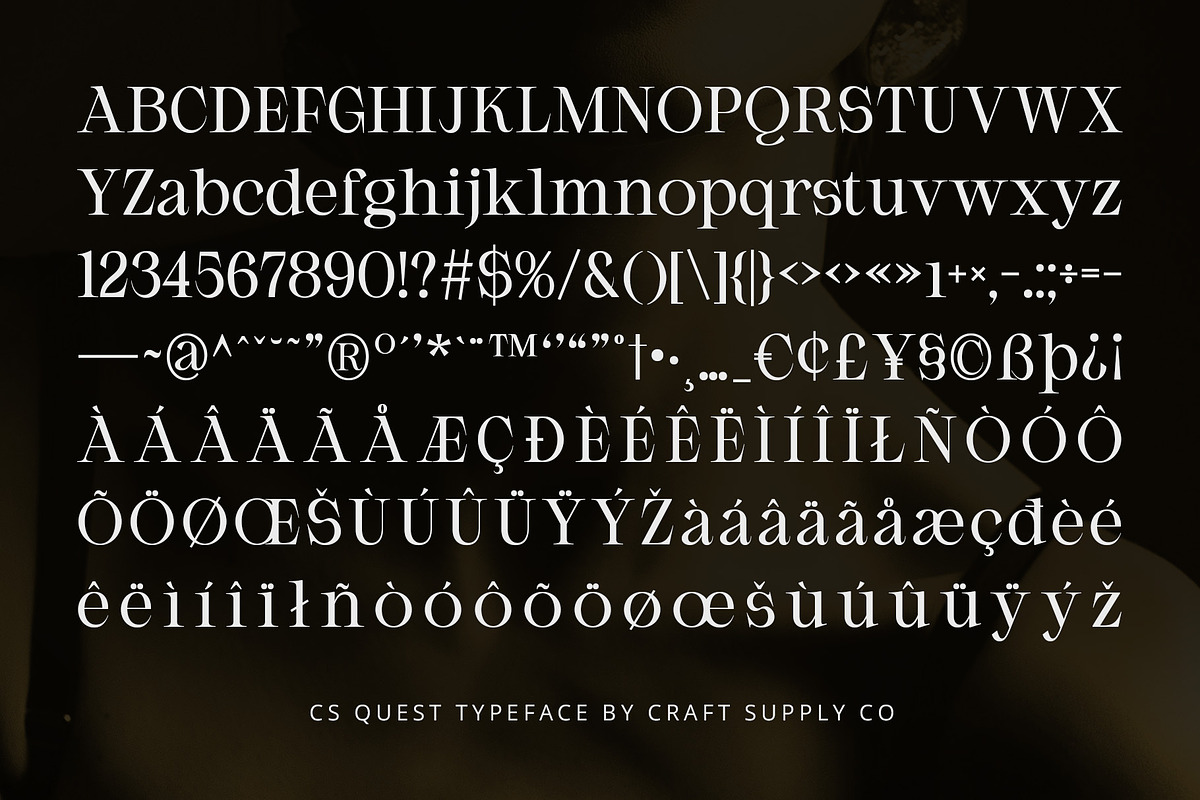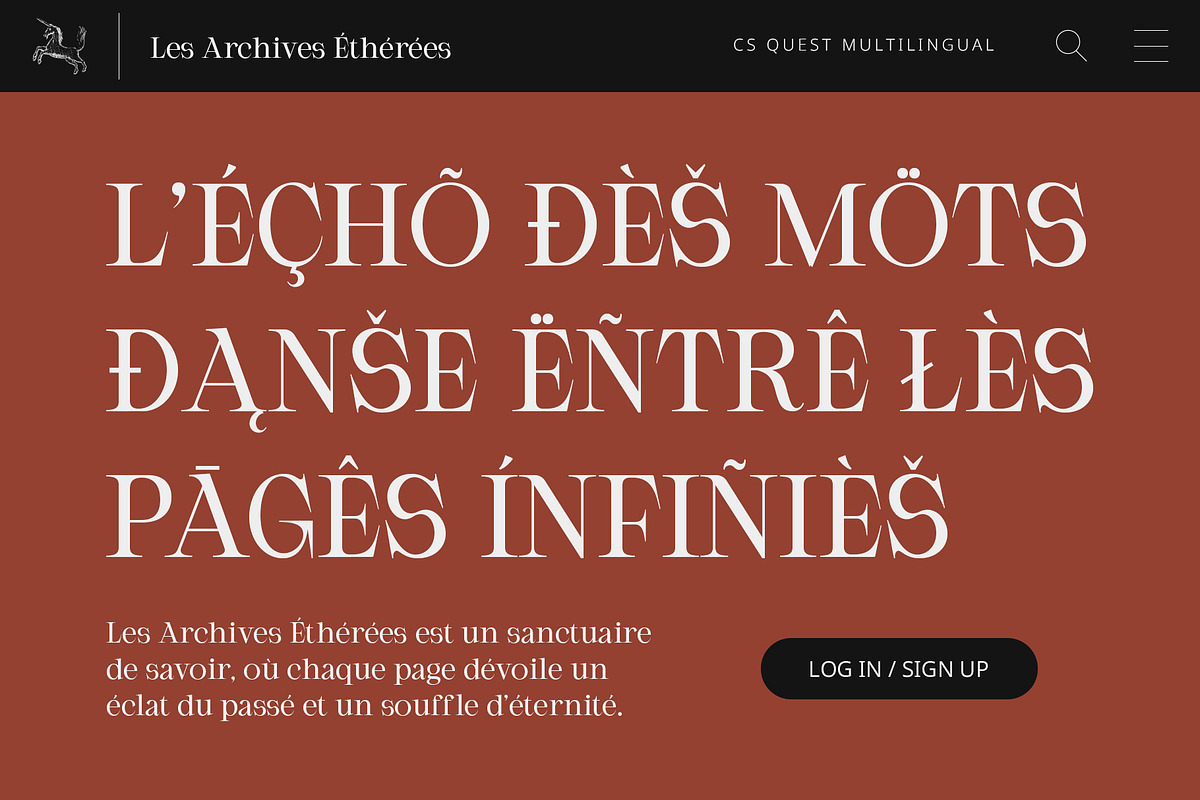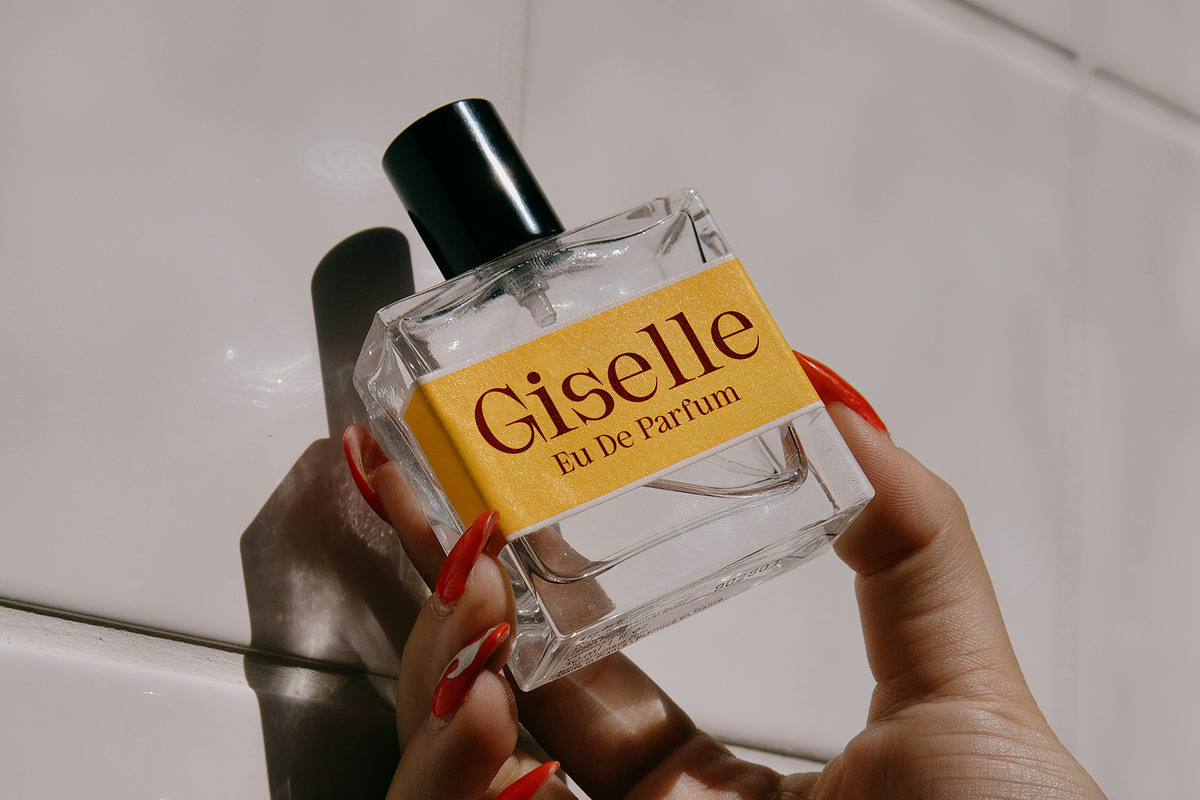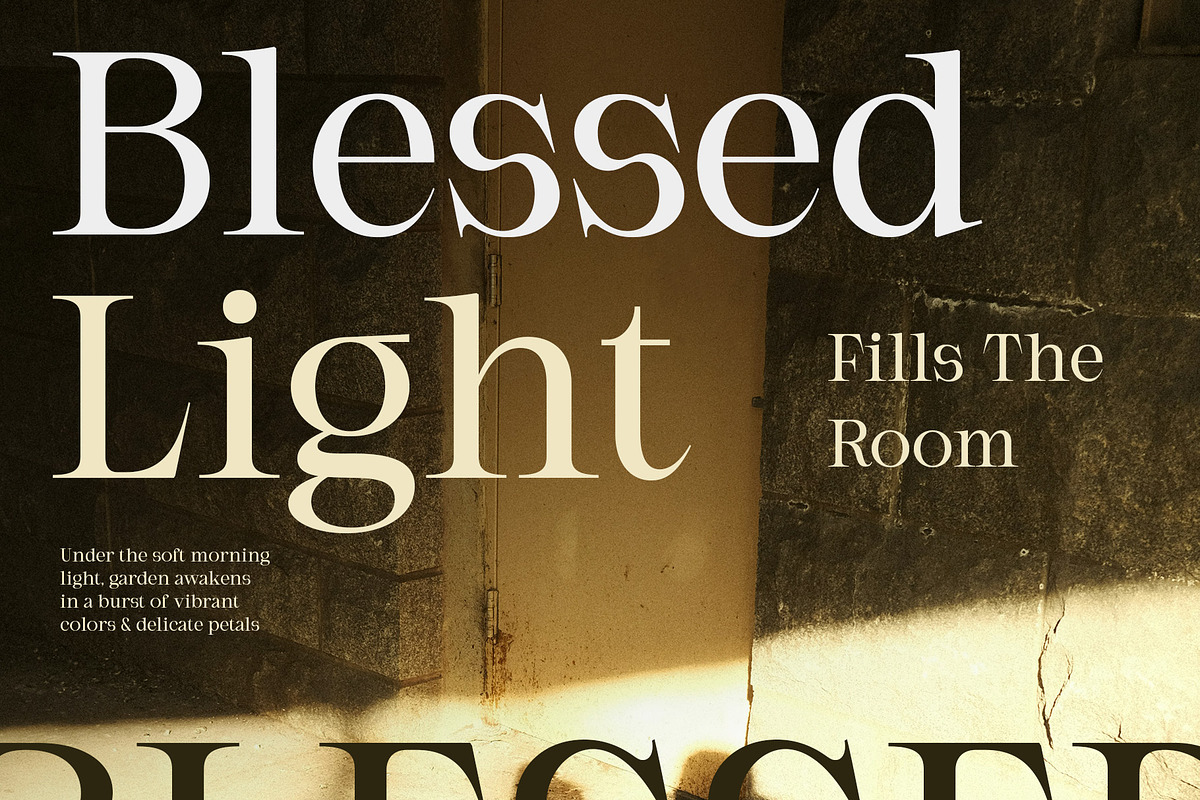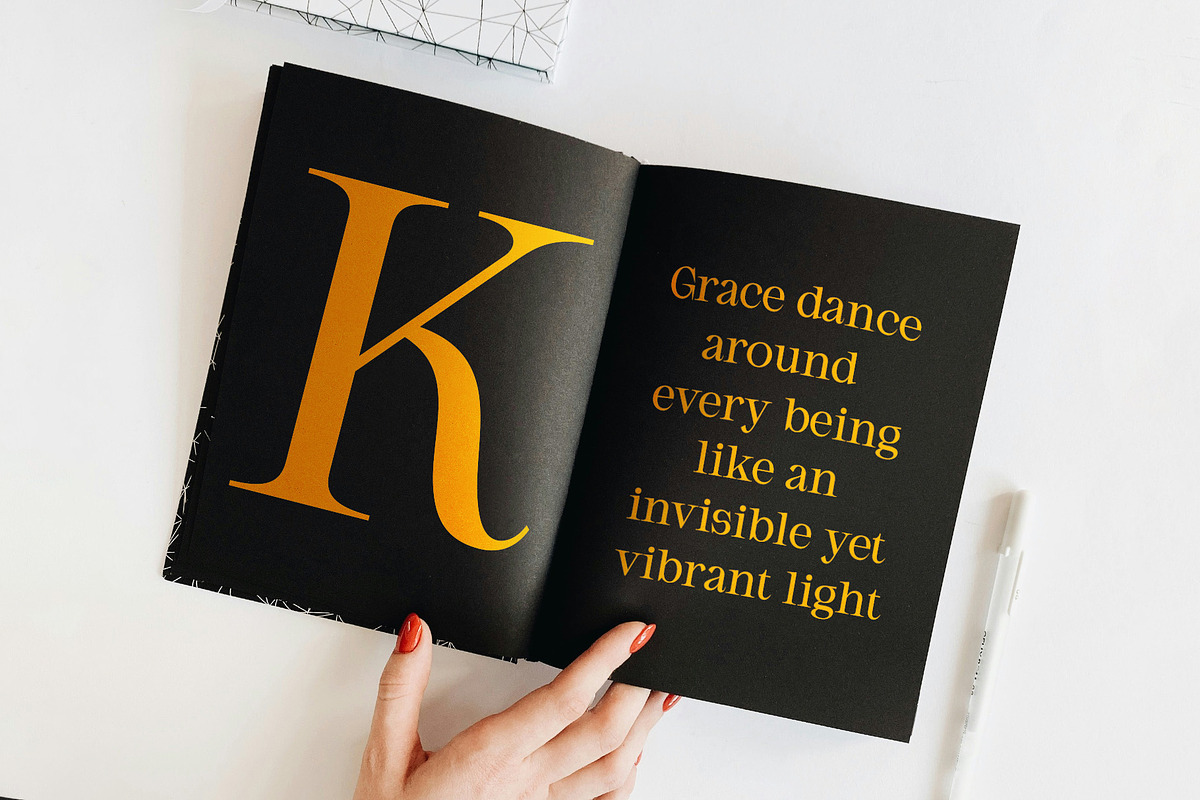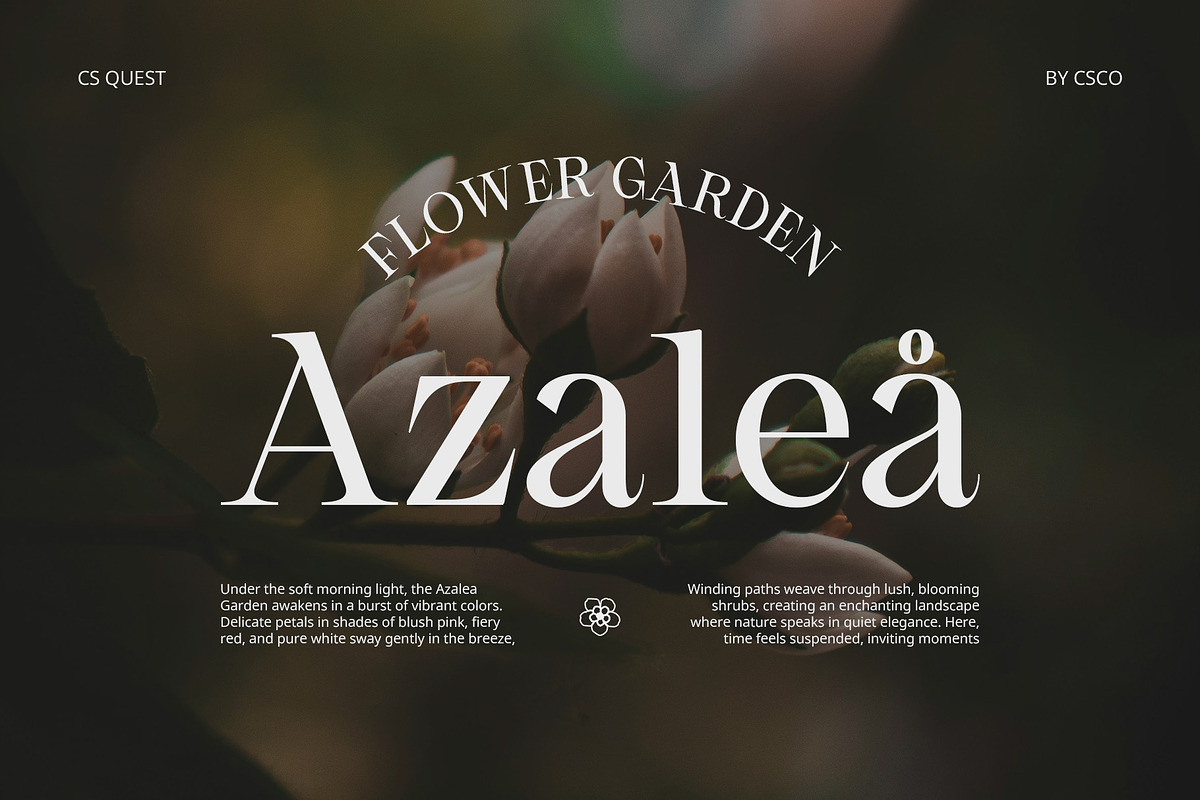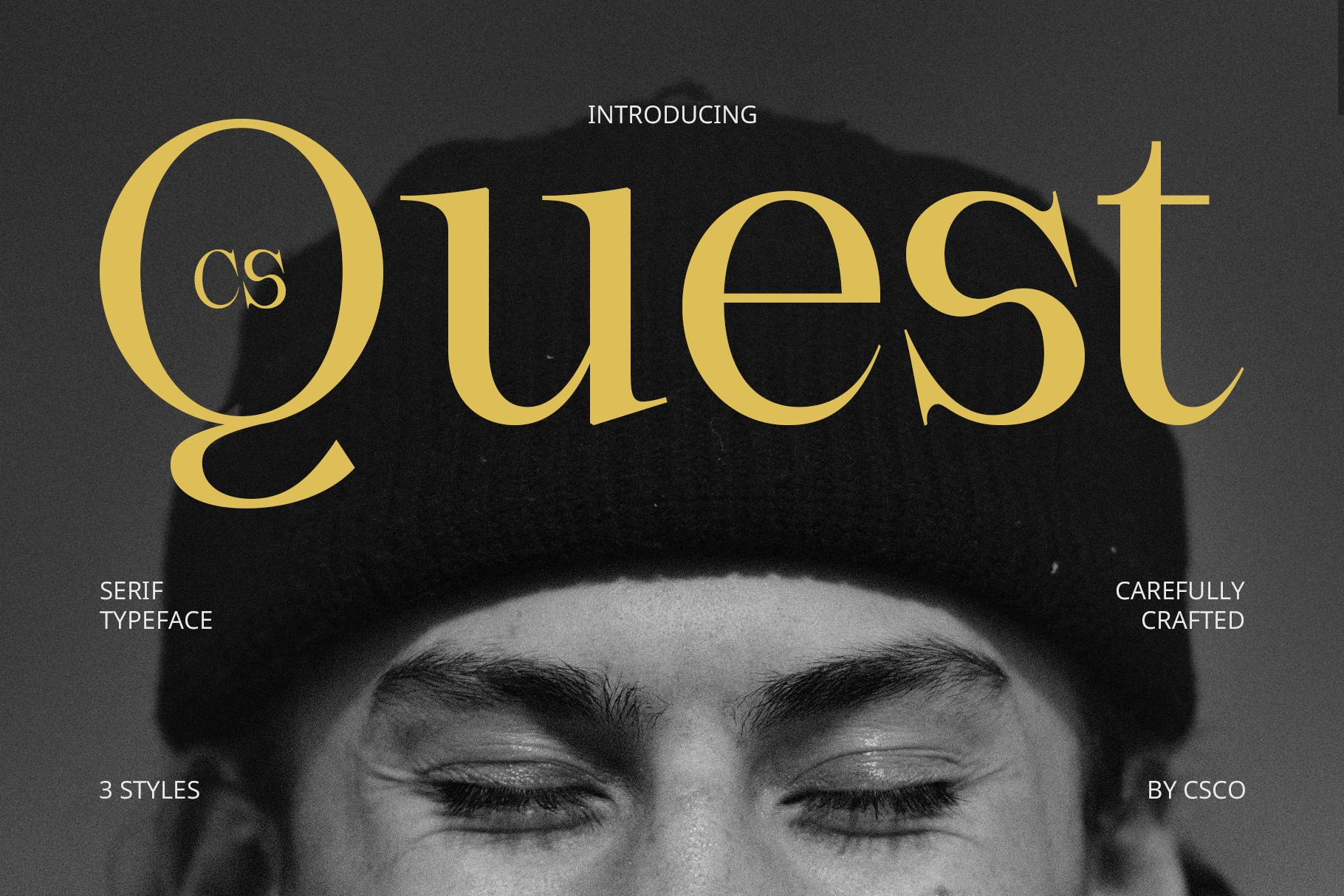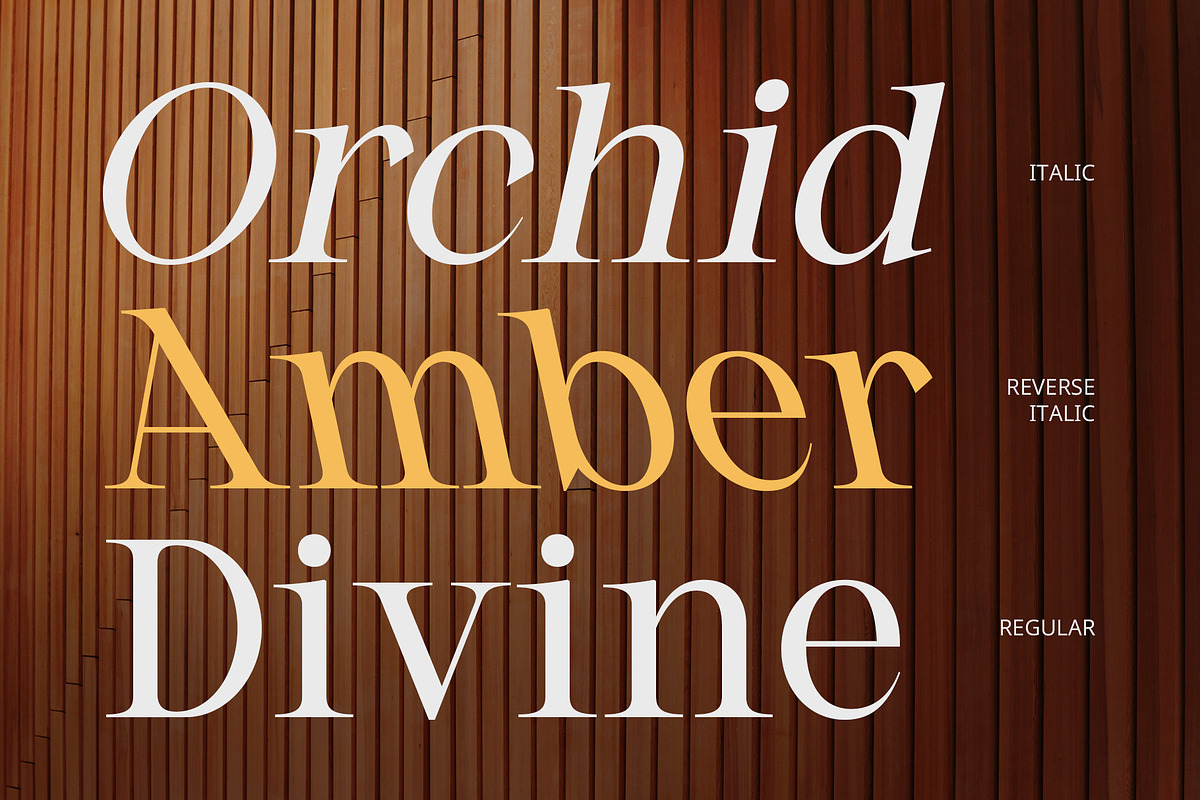
CS Quest – Classic Font
CS Quest – A Timeless Classic Serif Font
Elegance, Sophistication, and Modern Minimalism CS Quest is a modern classic serif font designed to embody refinement, balance, and exclusivity. Featuring clean lines, elegant proportions, and finely crafted serif details, this font merges traditional sophistication with a contemporary edge, making it perfect for luxury branding, editorial layouts, and high-end design projects.
Perfect for Premium and Professional Designs With its graceful structure and timeless appeal, CS Quest is ideal for fashion magazines, corporate branding, book covers, and upscale packaging. The font’s classic yet modern aesthetic ensures a polished and distinguished presence, making it an excellent choice for designs that need to exude confidence and prestige.
A Seamless Blend of Tradition and Modernity CS Quest retains the charm of classic serif fonts while incorporating a fresh, minimalist touch, making it versatile for both vintage-inspired and contemporary designs. Whether used for editorial headlines, elegant invitations, or high-end advertisements, it delivers a strong yet graceful visual impact.
Refined Typography for Lasting Impressions Designed for those who appreciate sophisticated and premium typography, CS Quest enhances any project with its timeless beauty and professional elegance. Its harmonious balance of tradition and modernity makes it an essential typeface for designers aiming to elevate their visual identity with class and distinction.
- CS Quest Regular
- CS Quest Italic
- CS Quest Reverse Italic